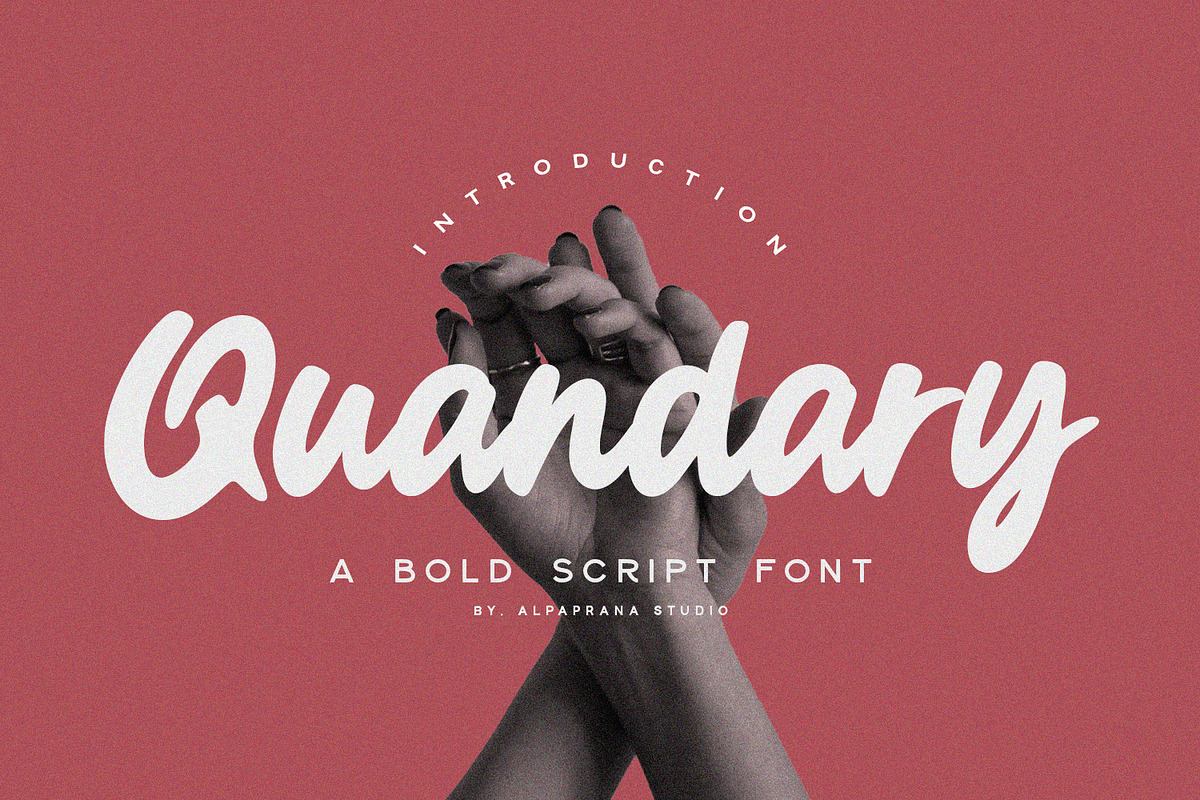
The Quandary - Bold Script Font Free Download is a striking and dynamic typeface that combines boldness with the elegance of script lettering. Perfect for logos, posters, branding, product packaging, and social media graphics, this font brings a strong, confident look with a touch of personality.
With its thick strokes and fluid, hand-drawn feel, Quandary adds a powerful, yet stylish presence to any design. It includes uppercase and lowercase letters, numbers, punctuation, and multilingual support, giving you flexibility for a variety of creative projects.